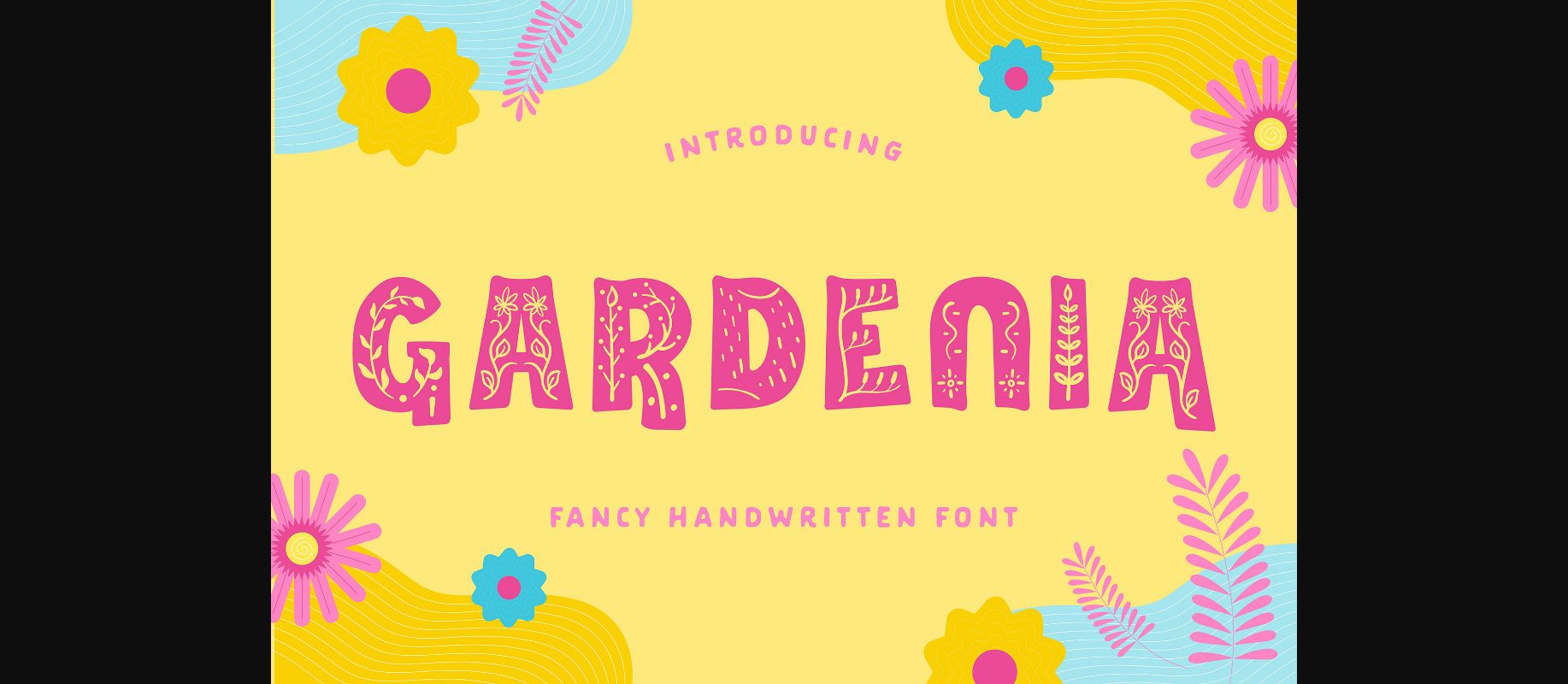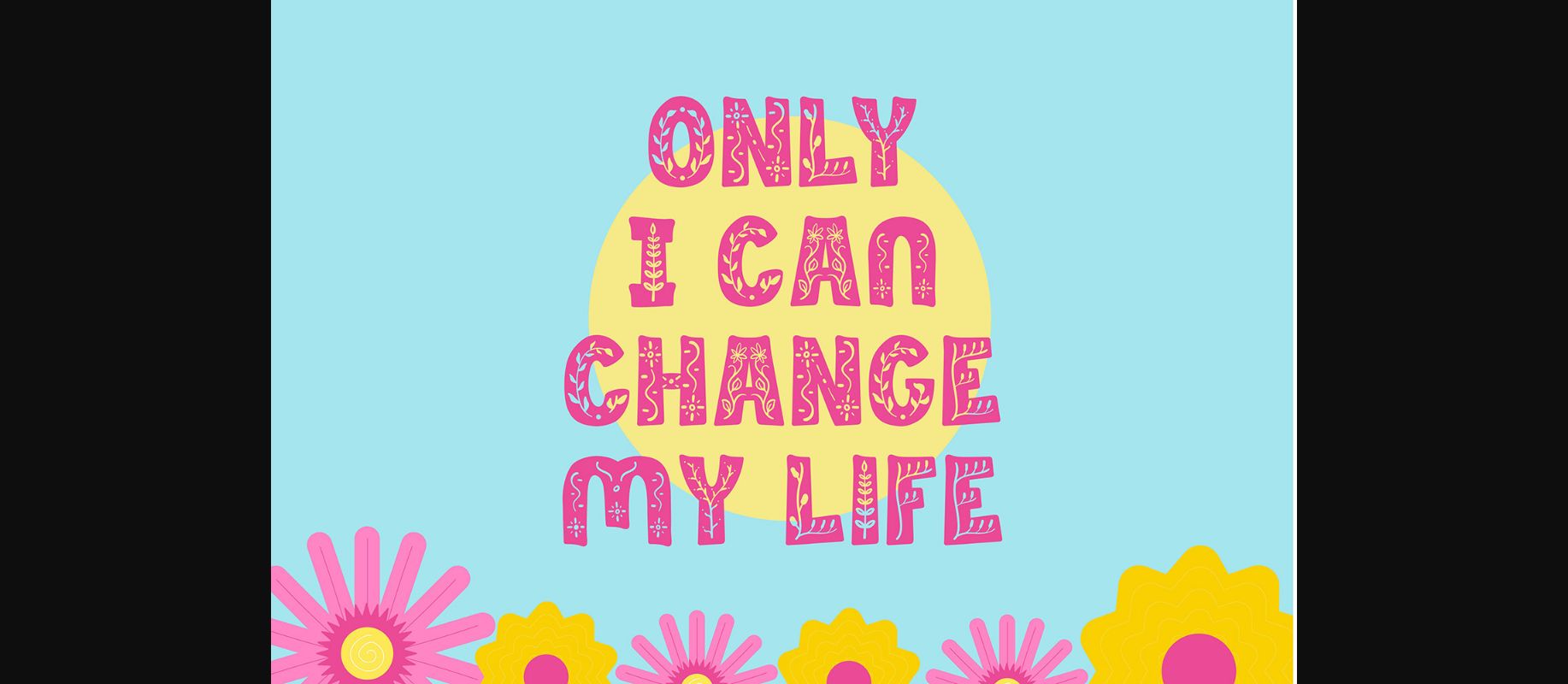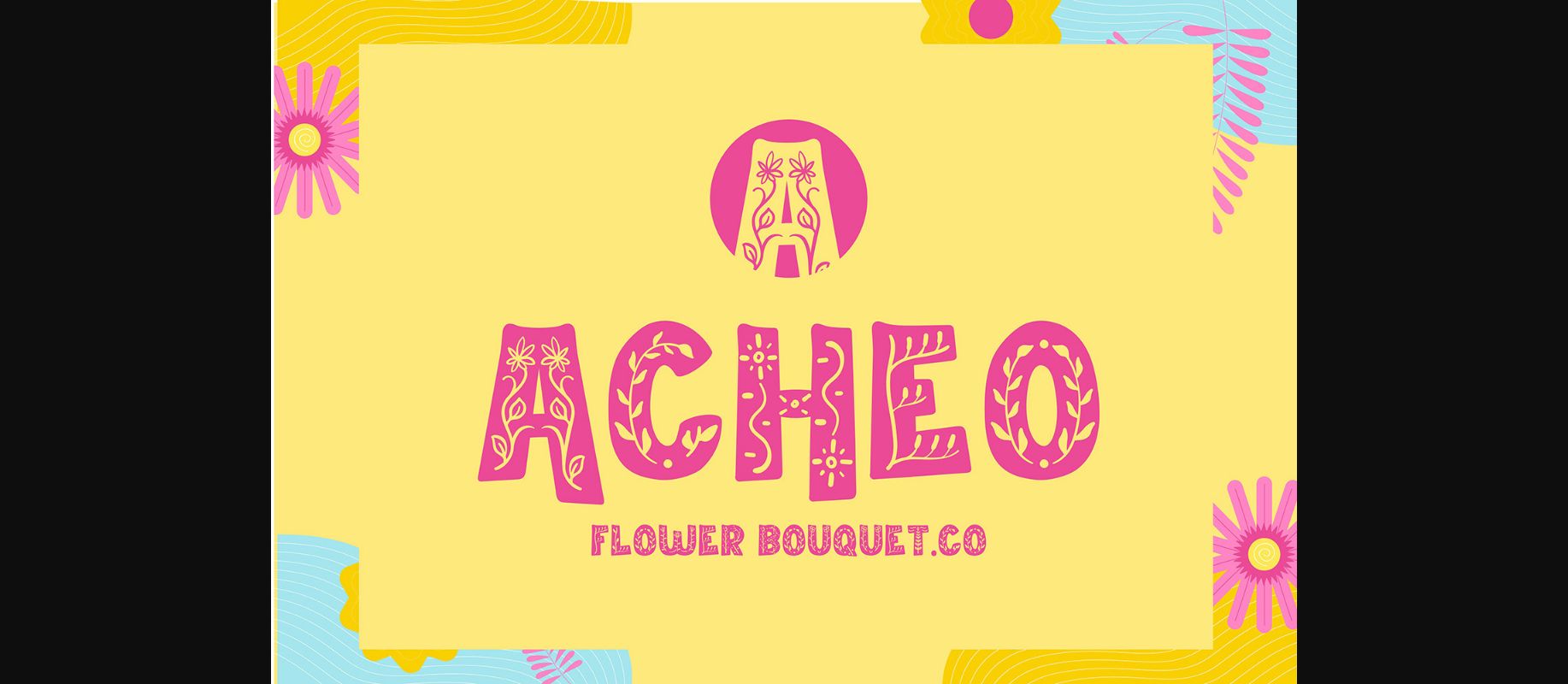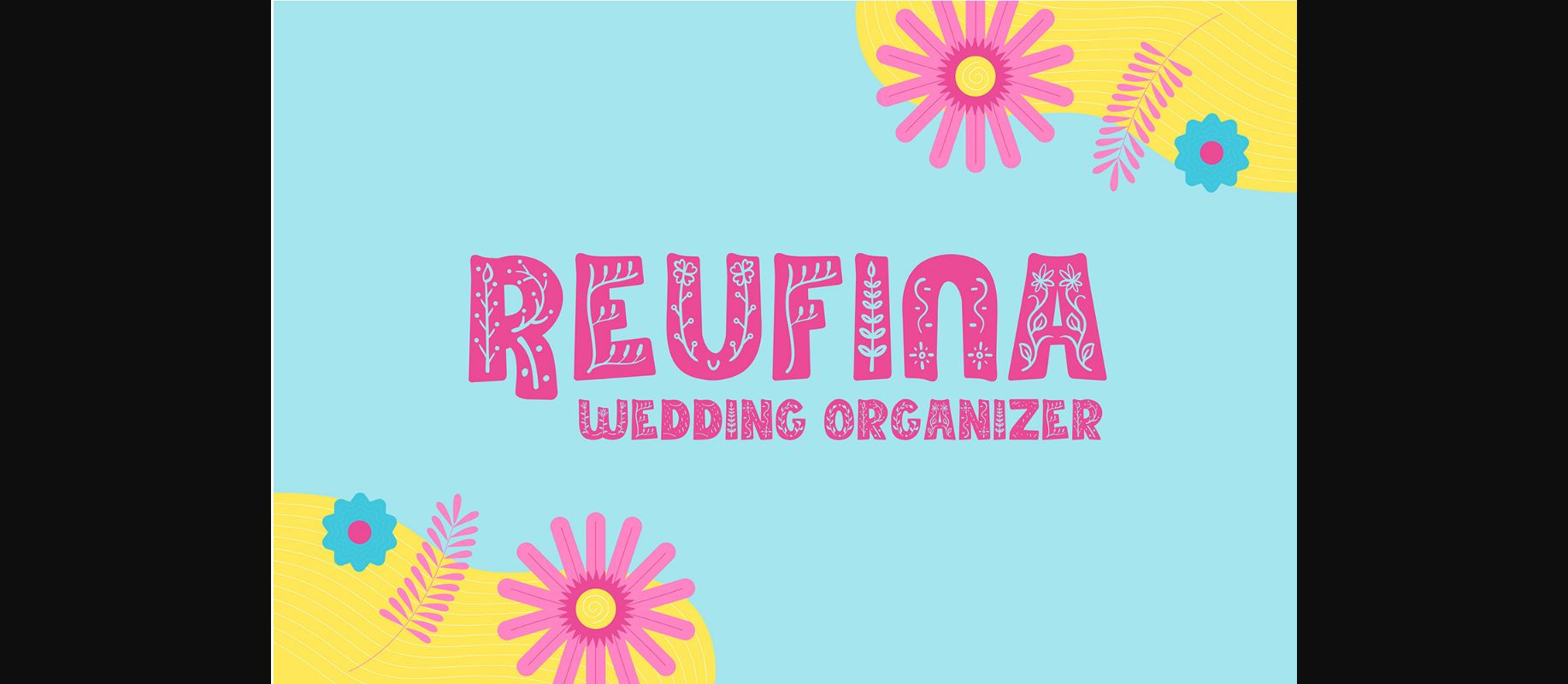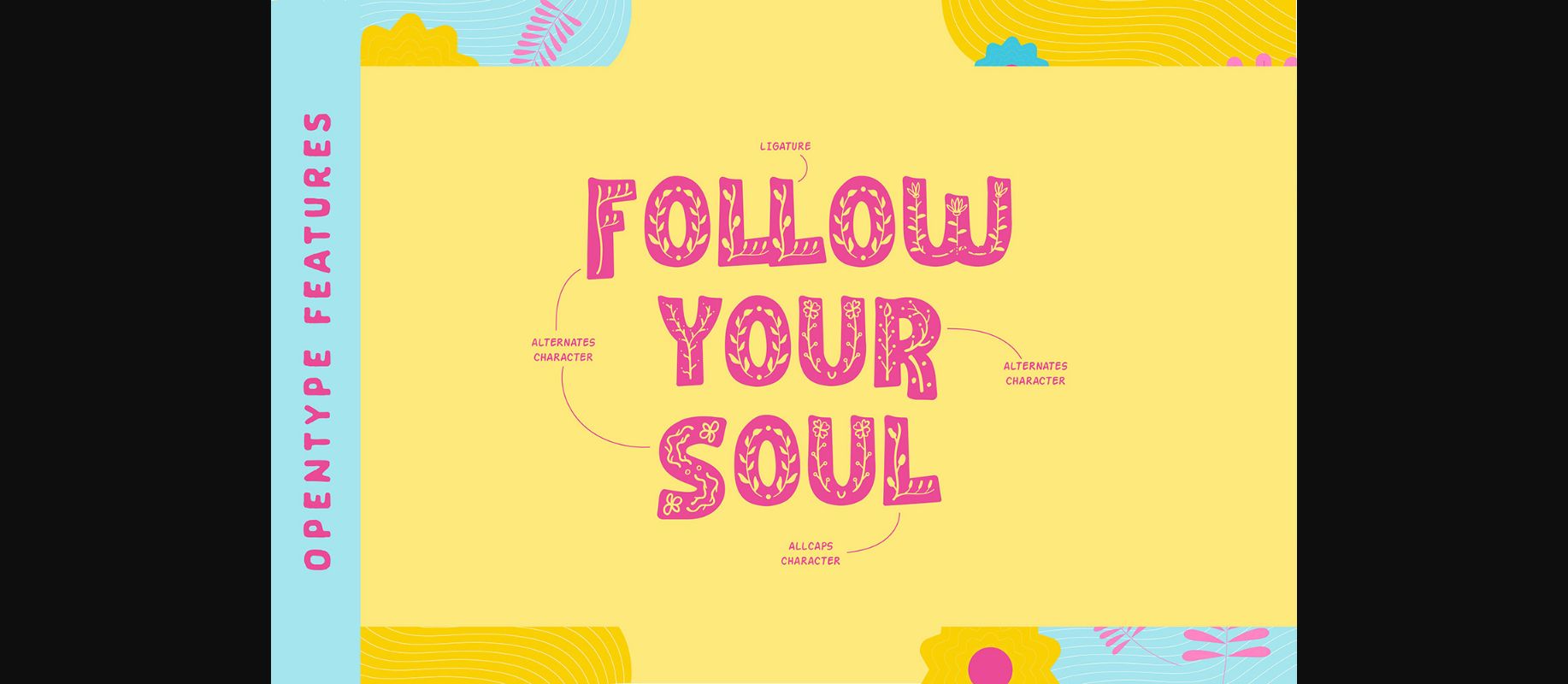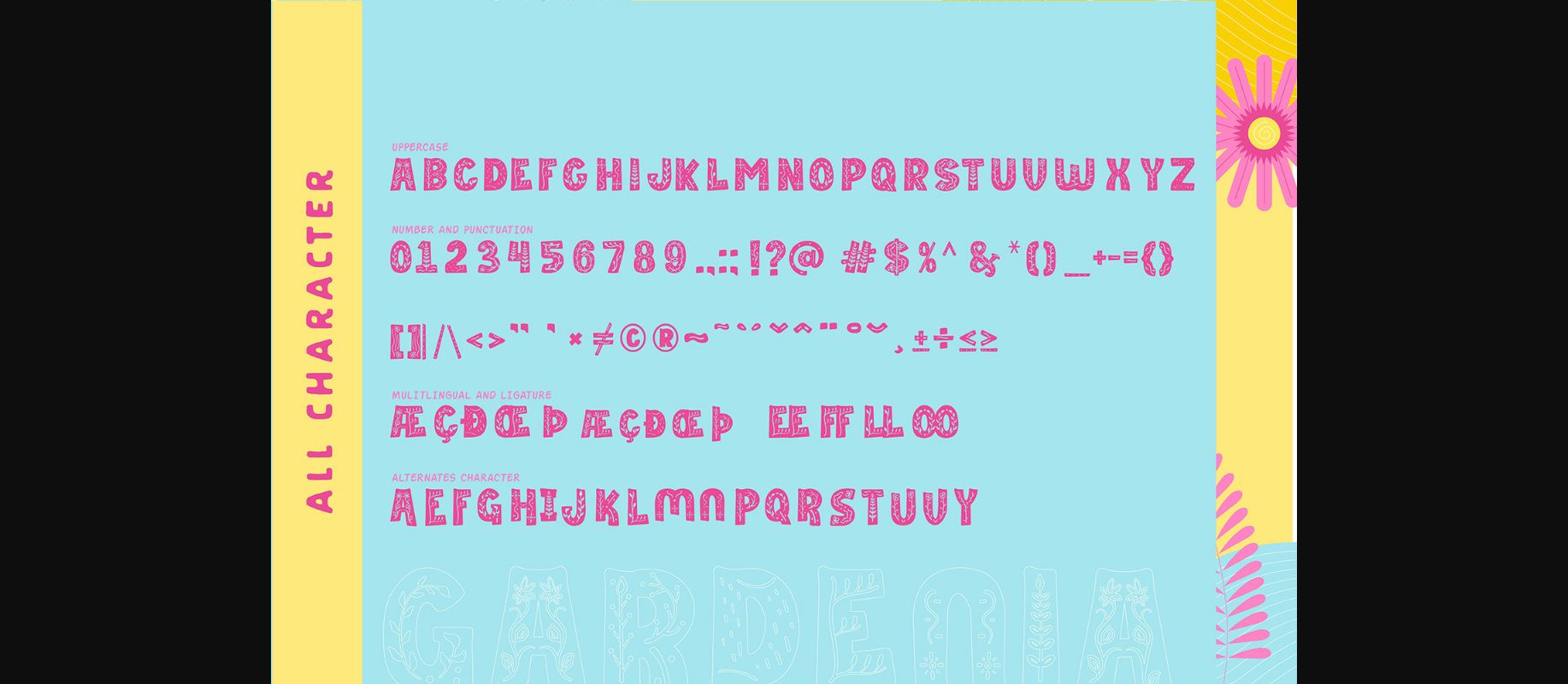
Gardenia Font
About Gardenia Font
Gardenia is a beautiful decorative font that was inspired by the natural world. It will look amazing on wedding invitations, greeting cards, branding materials, business cards, quotes, posters, and many more! Add it to your most creative designs to make them stand out!